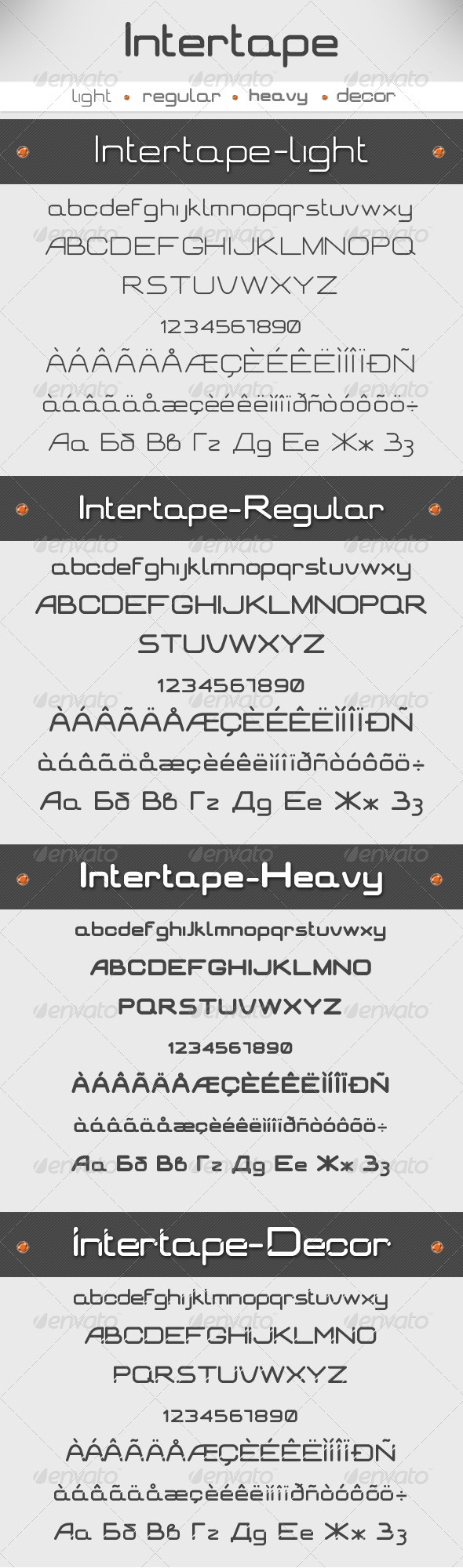
• Intertape Regular • Intertape Light • Intertape Heavy • Intertape Decor
Intertape Font – minimalist Sans-Serif font perfect for titles or any modern styled projects. This font contains more than 255 glyphs at an optimum size of 9pt – larger is better.